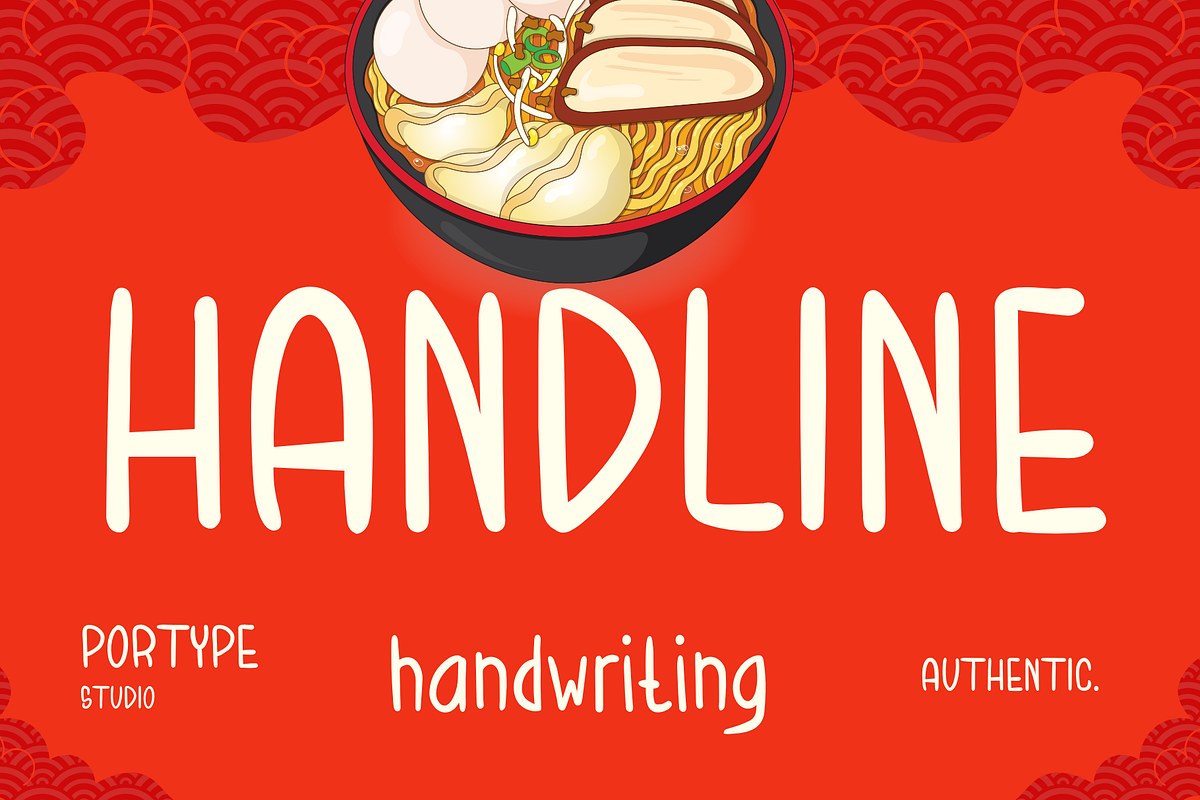
Add a personal, authentic touch to your designs with Handline – Handwriting Font Free Download. This casual handwritten typeface mimics natural pen strokes, making it perfect for note-style graphics, personal branding, quote posts, planners, lifestyle blogs, and heartfelt packaging.
Handline delivers smooth, easy-to-read characters with a relaxed, friendly feel. Its organic flow makes it ideal for projects that need to feel approachable and genuine. The font includes uppercase and lowercase letters, numerals, punctuation, and ligatures—giving you plenty of options while experimenting with layout and composition.
Whether you're designing for digital or print, this font brings sincerity and personality to every word. For any commercial use, please make sure to obtain the correct license. Download Handline – Handwriting Font Free Download today and write your message with warmth and style.